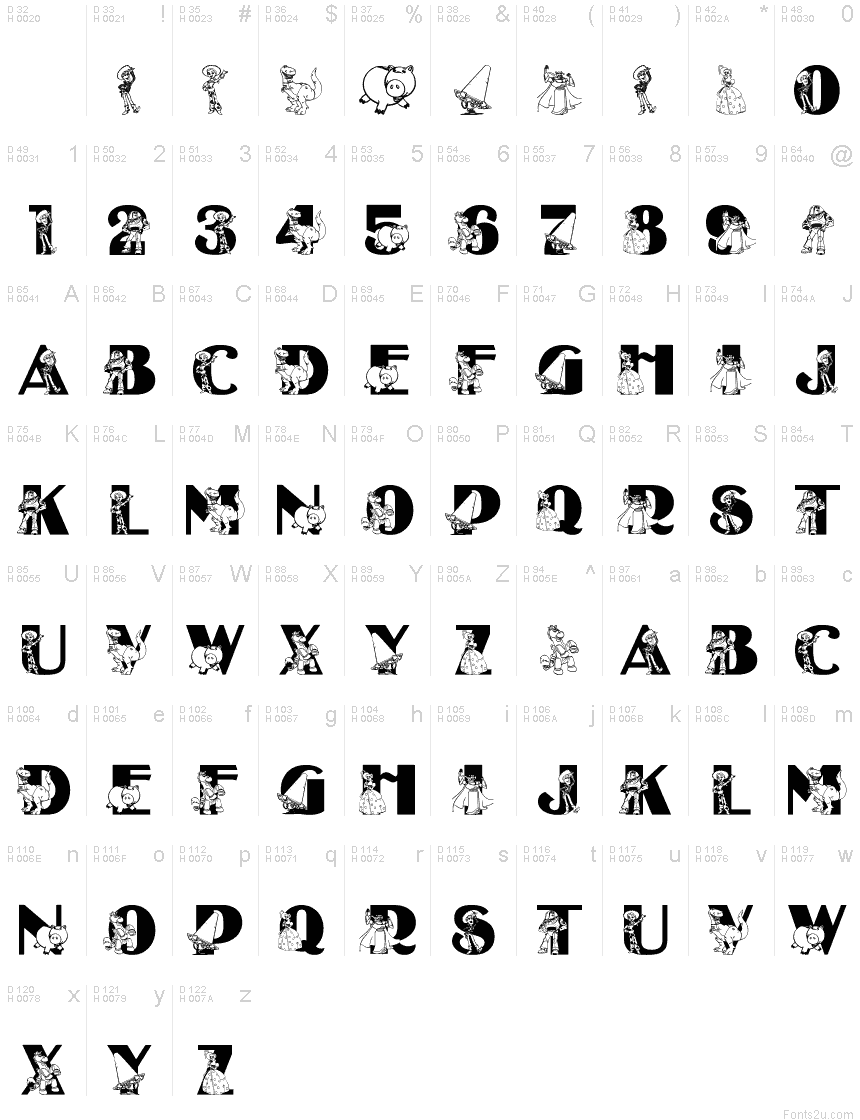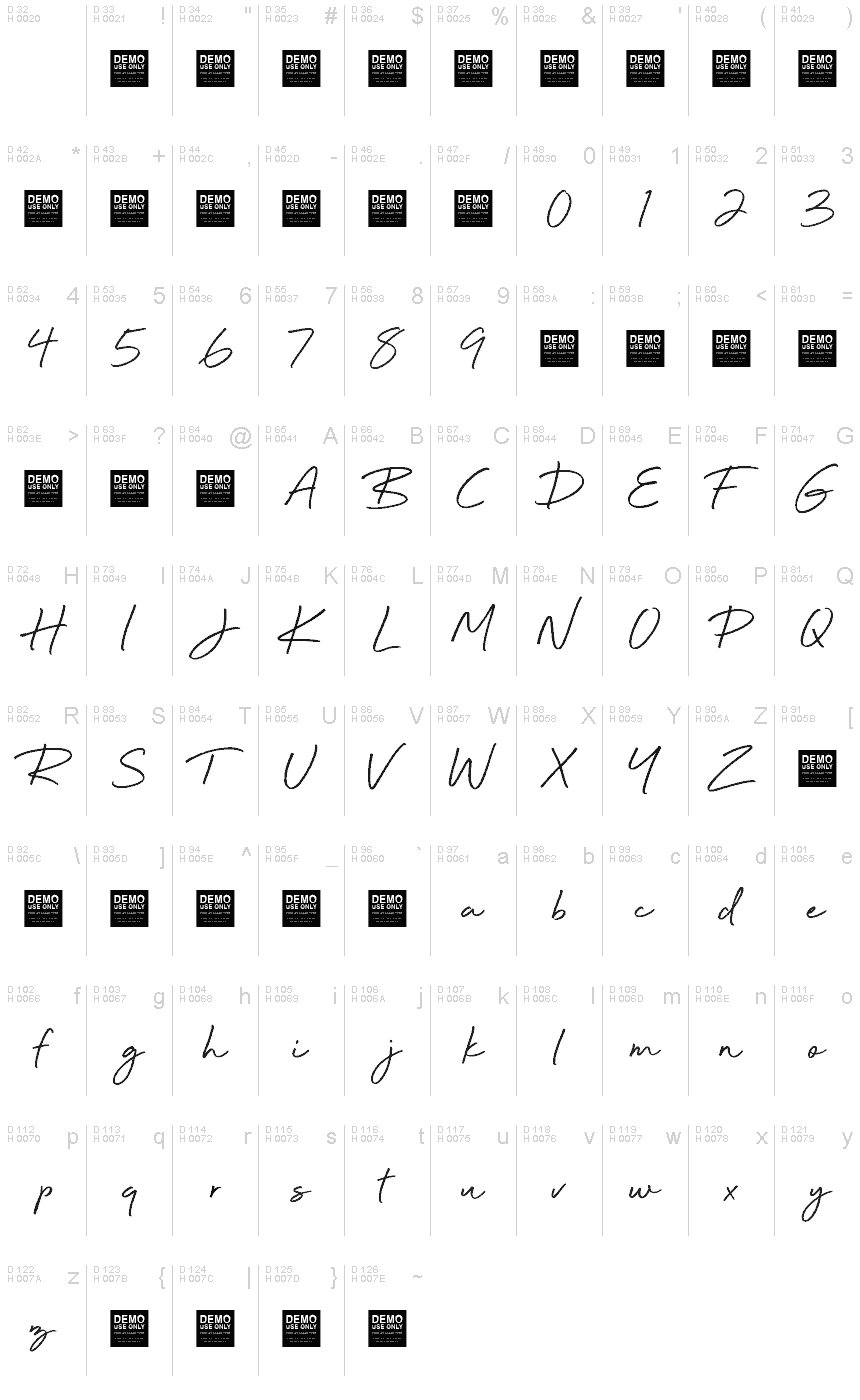
Beyond Infinity Font Full. Click now to create a custom image with. Lms beyond infinity font family browse a full collection of fronts from the lms beyond infinity font family.
Lms beyond infinity font family browse a full collection of fronts from the lms beyond infinity font family. Download the beyond infinity font by blkbk fonts. Each font is reviewed by a fontspace moderator, checked for font.
Casual typeface composed of simple lines and curves. Lms beyond infinity font family browse a full collection of fronts from the lms beyond infinity font family. Download beyond infinity font by blkbk type.
All The Characters Have Showcased The Decent Texture And It Feels Like Someone Wrote It With Their Own Hands.
There are no other fonts in this font family. Download the beyond infinity font by blkbk fonts. Before you kicked your line in the sand in your eyes, you could try to see the horizon through a veil of ignorance.
Beyond infinity is a high quality handwritten font that is designed by blkbk fonts and you can use this font for personal purpose. Click now to create a custom. Download the beyond infinity font by blkbk fonts.